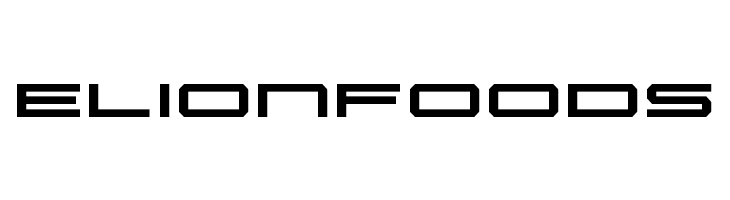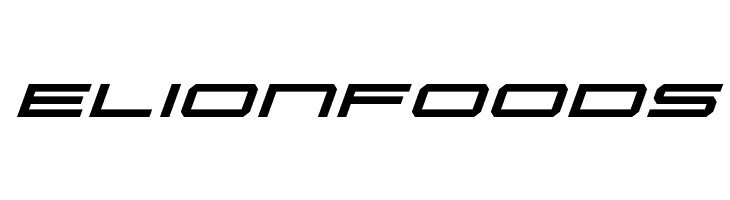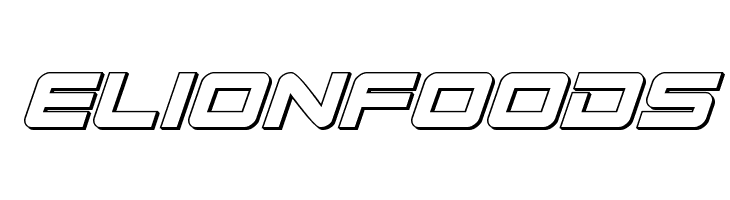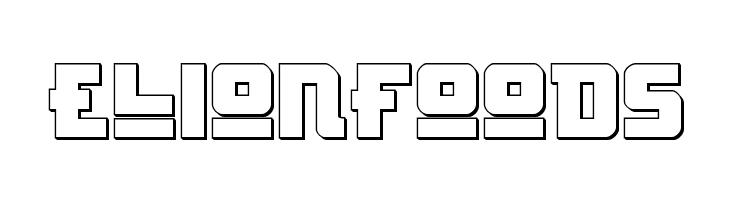
A futuristic, geometric font with sharp, angular edges and a sleek design.
A sleek, modern font with a futuristic and dynamic italic style.
A bold, italicized font with a gradient effect, ideal for dynamic and futuristic designs.
A bold, italicized font with a modern, dynamic style and medium contrast.
A bold, 3D italic font with a futuristic and dynamic style.
A bold, italicized 3D font with a futuristic and dynamic design.
A bold, 3D outlined font with a futuristic and urban style.
A bold, futuristic font with angular, geometric characters.
A dynamic, italicized font with angular letterforms and a futuristic style.
A bold, italicized, and expanded font with a futuristic and dynamic style.